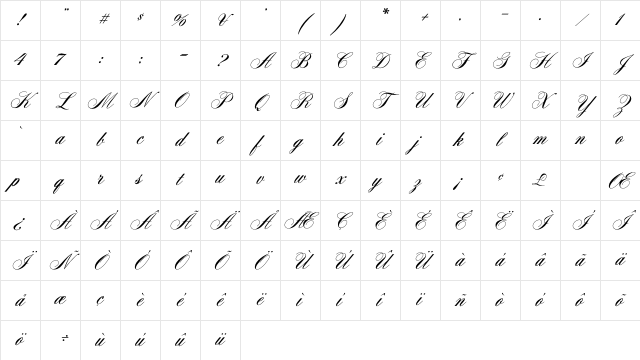
AeroliteScriptCP Medium Free Font
AeroliteScriptCP Medium
Complete AeroliteScriptCP Medium glyph index. Displaying only characters natively supported by AeroliteScriptCP Medium font.
Design Context for AeroliteScriptCP
AeroliteScriptCP flows with the natural rhythm of handwritten lettering, making it ideal for designs that call for warmth and personal expression.
Font Pairing: Combine AeroliteScriptCP with a simple geometric sans for maximum contrast - the tension between flowing curves and clean structure is a classic typographic pairing.
Pro Tip: Use AeroliteScriptCP for short runs of text - names, titles, or taglines. Extended body copy in script faces tires the eye quickly.